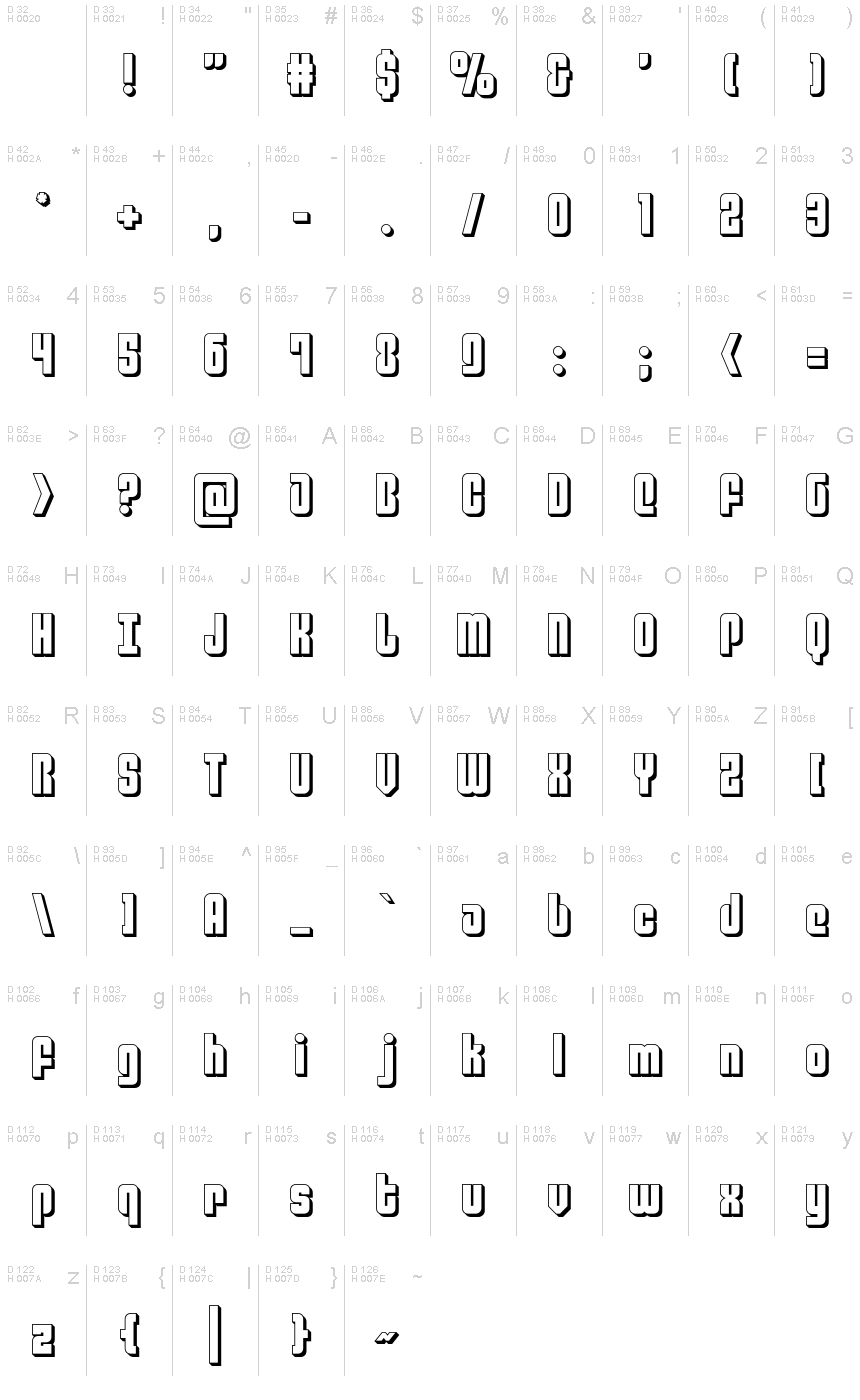
Philadelphia 3D by Iconian Fonts is a free modern 3D display font with a chunky retro-futurist feel. The letters stack rounded corners, tall verticals, and a heavy offset shadow into a look that feels part arcade marquee, part comic sci-fi title, with the depth doing most of the talking.
It fits posters, game branding, event flyers, streaming graphics, and album or mixtape covers, where that blocky shadow can carry short words without extra decoration. As a free font, it also works nicely for title cards, logo sketches, and big social headers when you want something playful but still built from clean, simple shapes.
Philadelphia 3D
Daniel Zadorozny